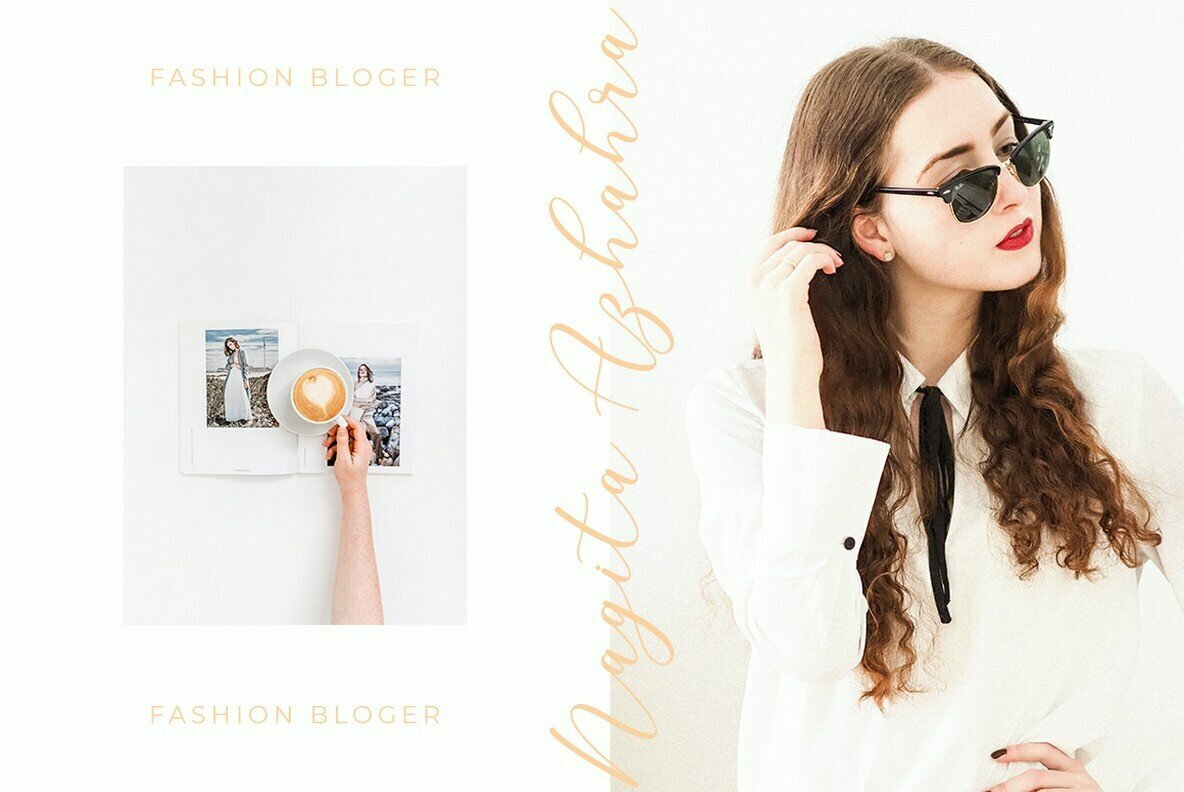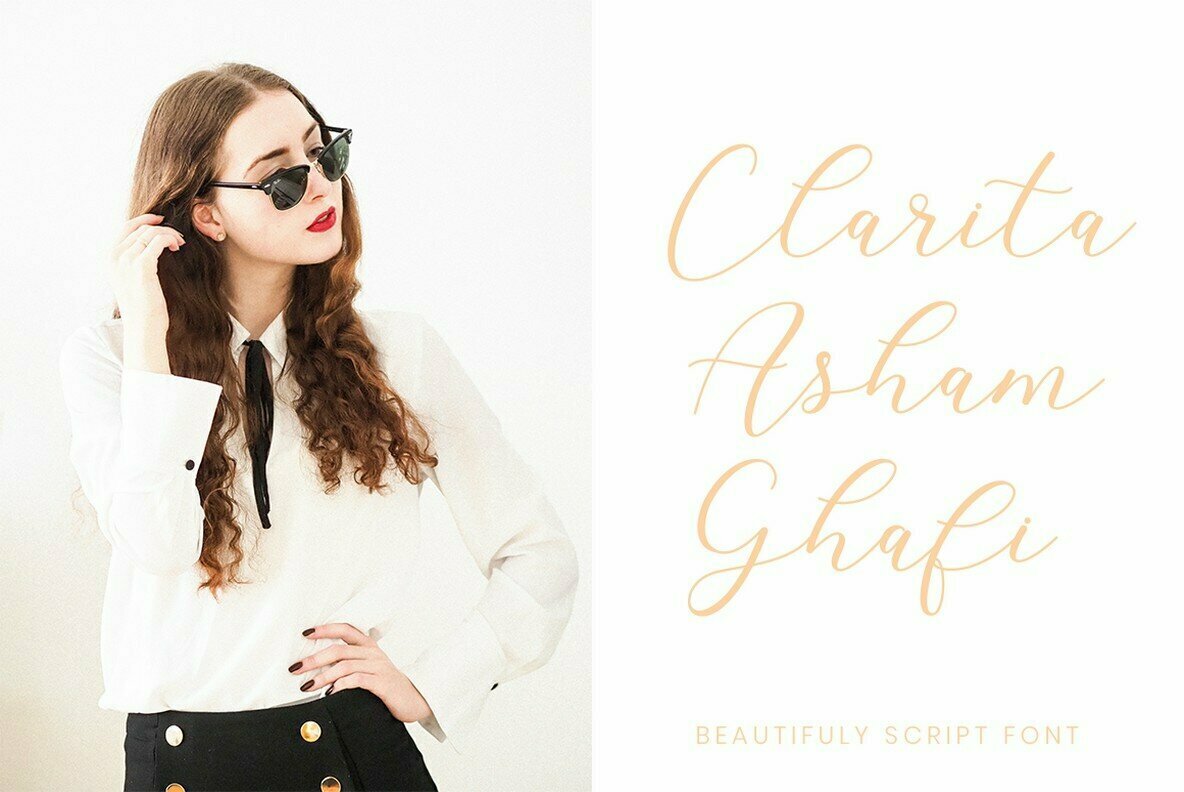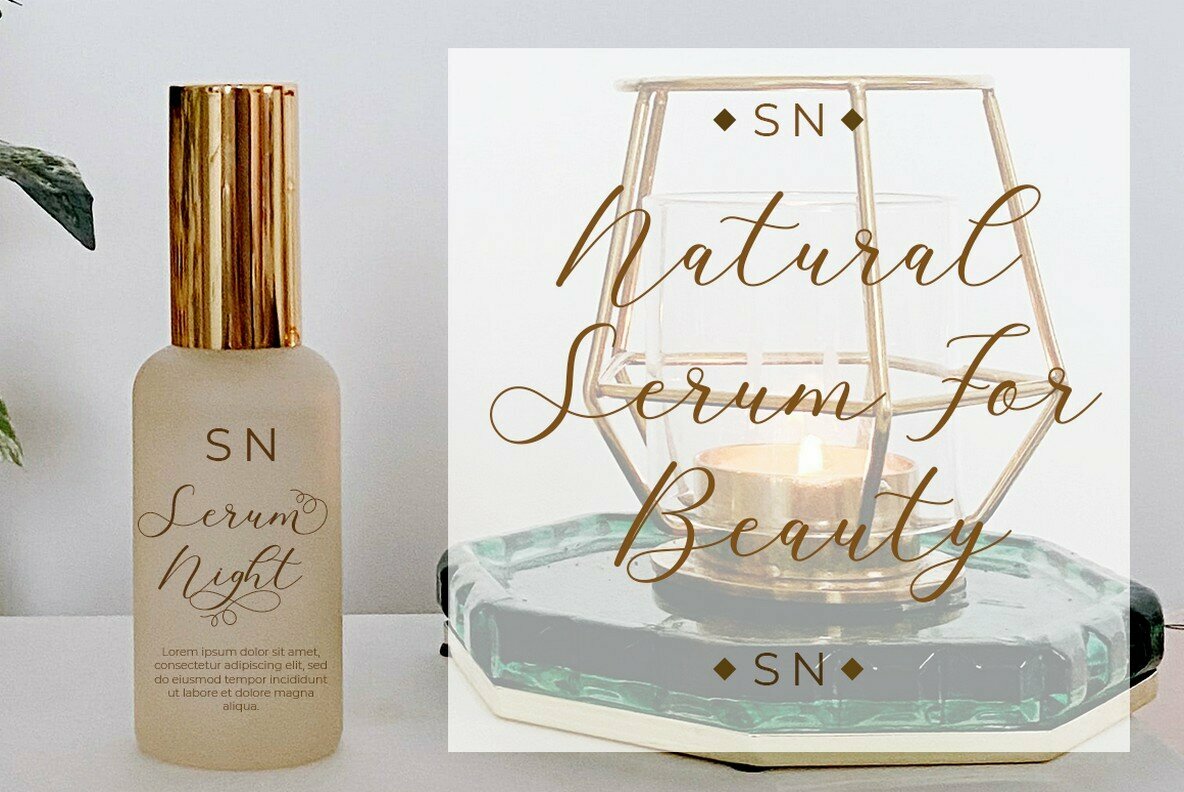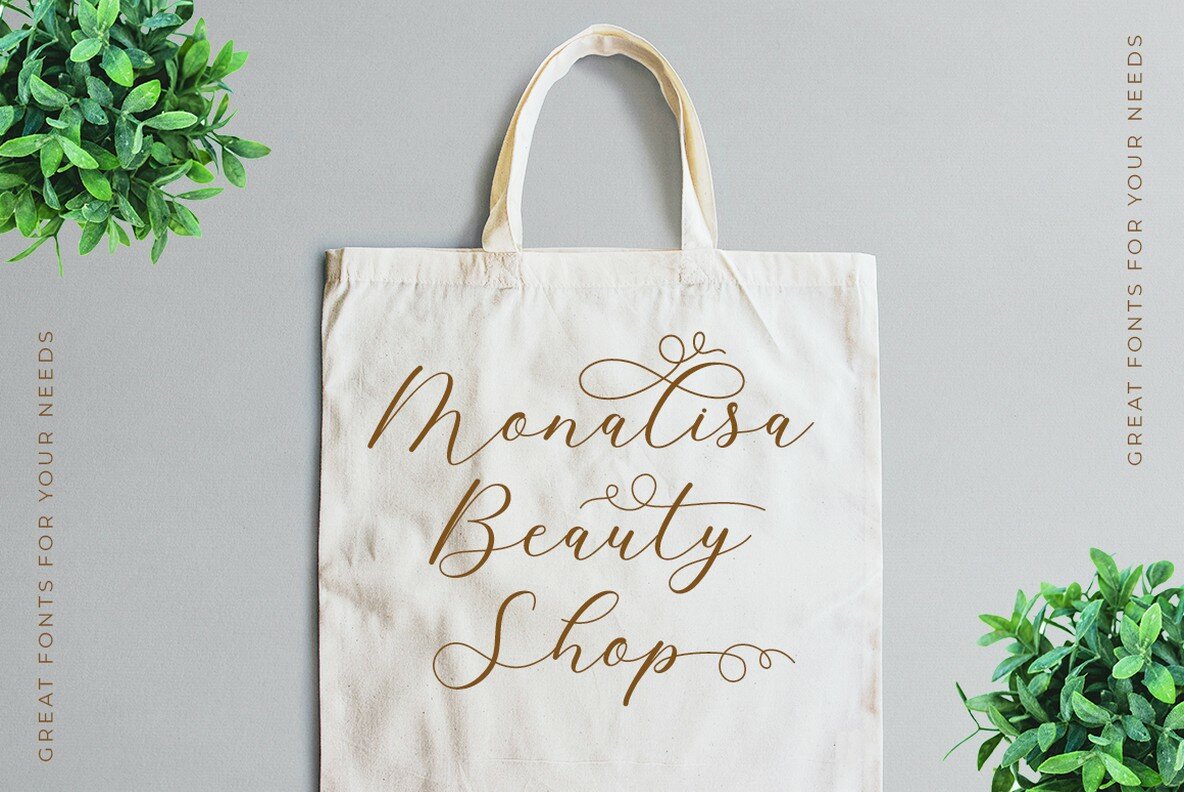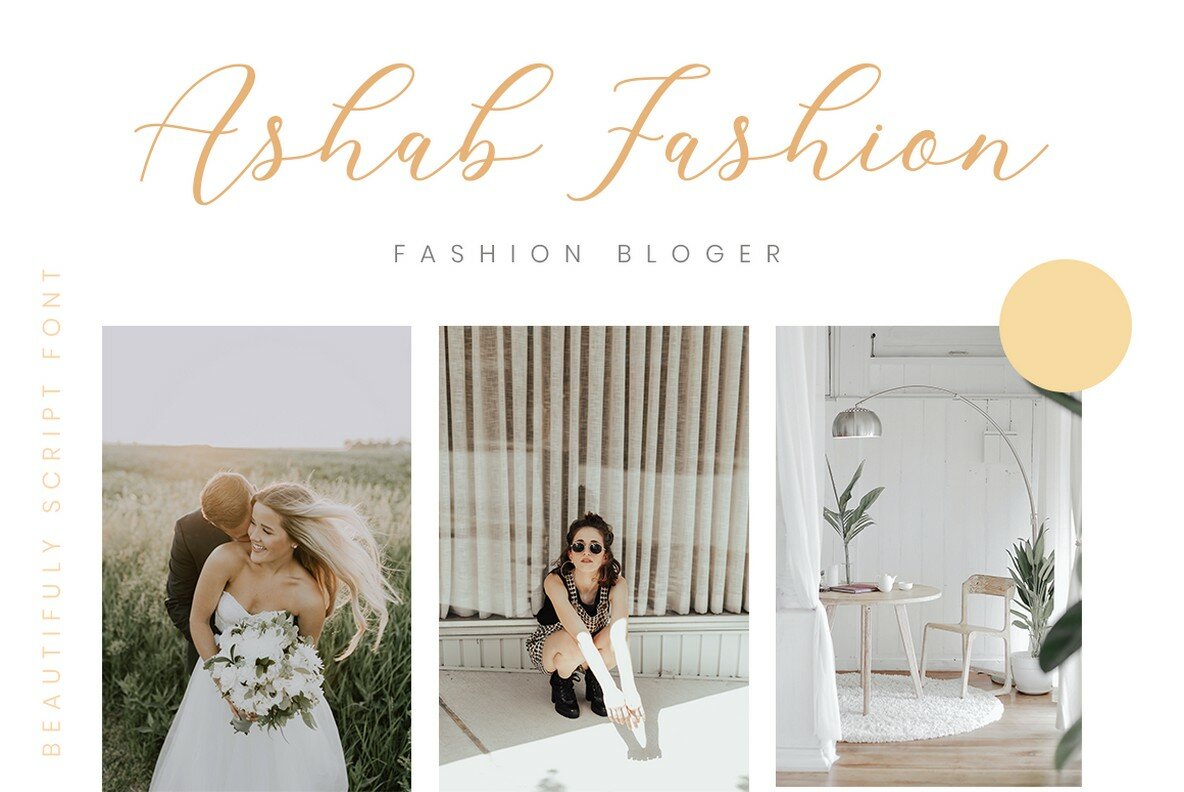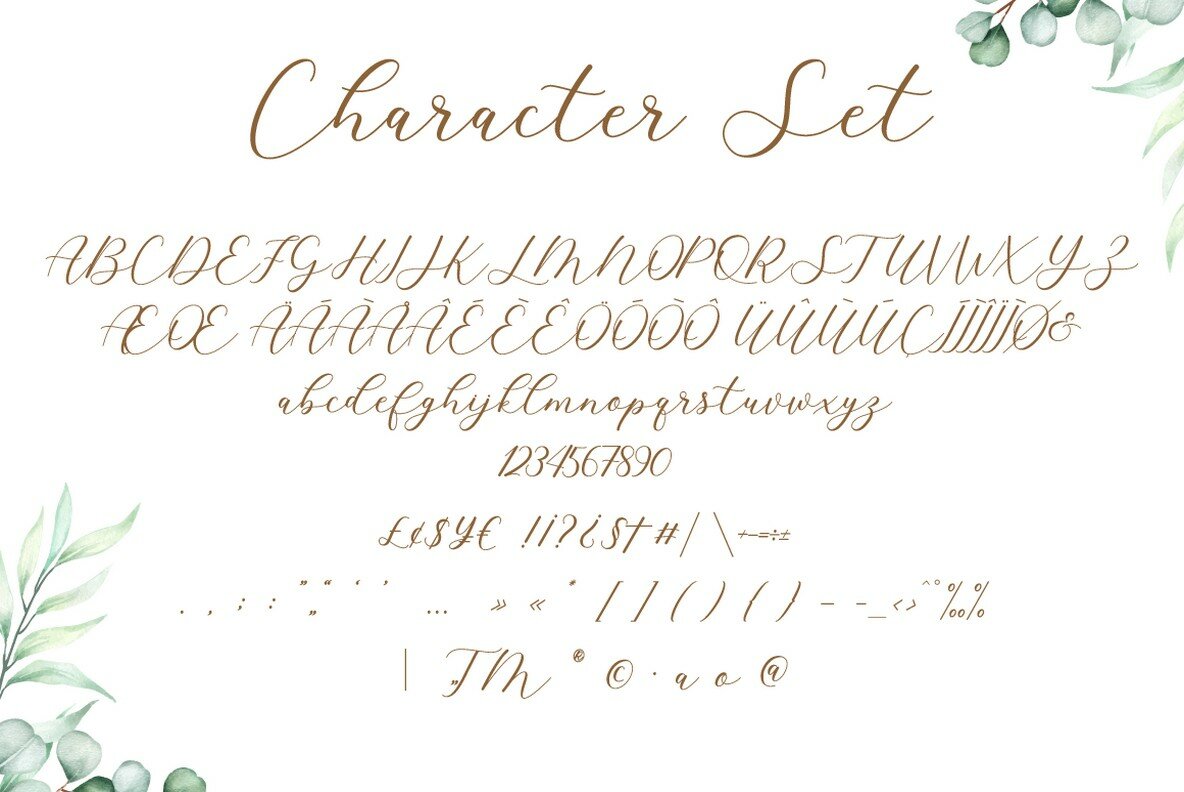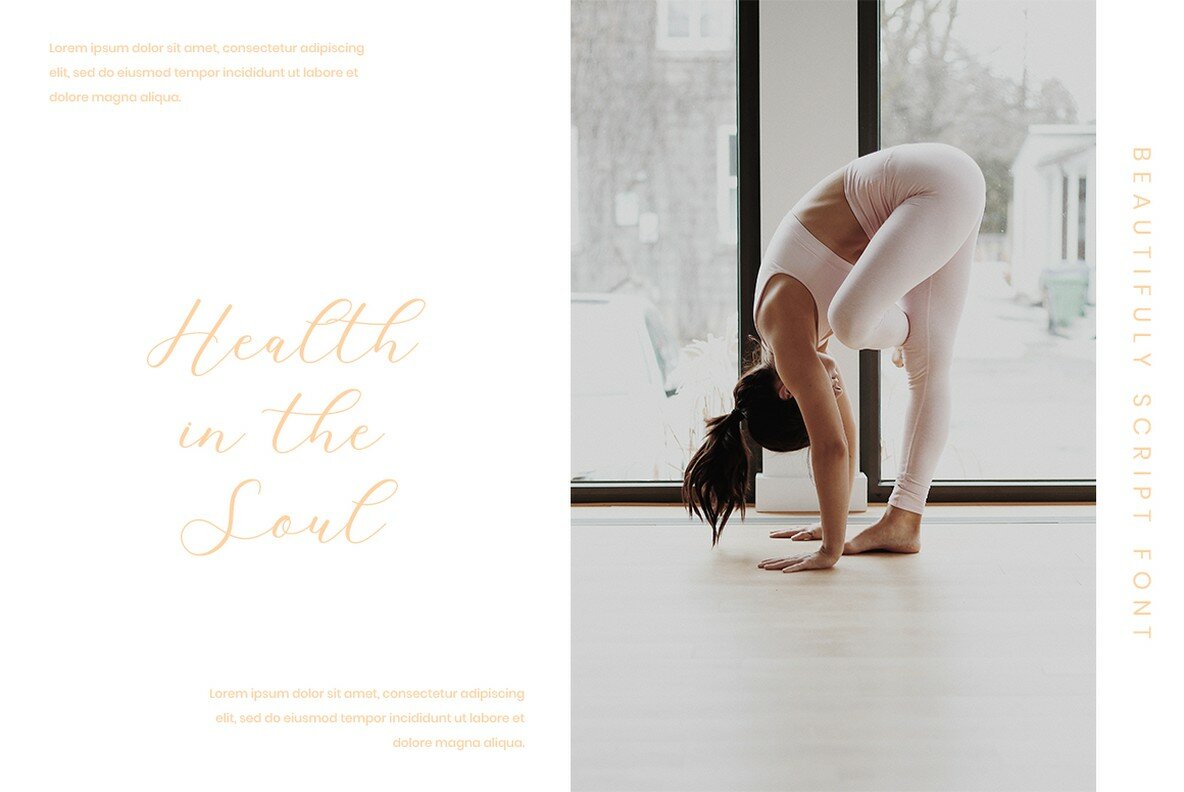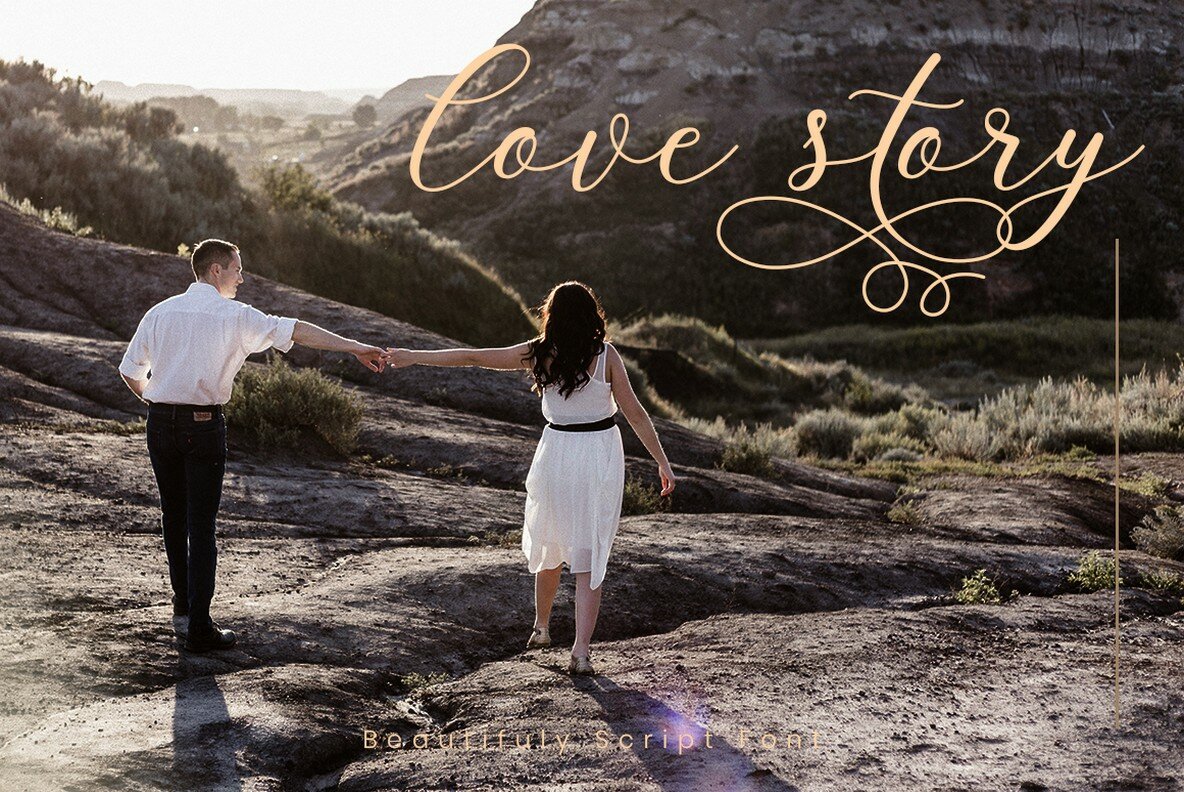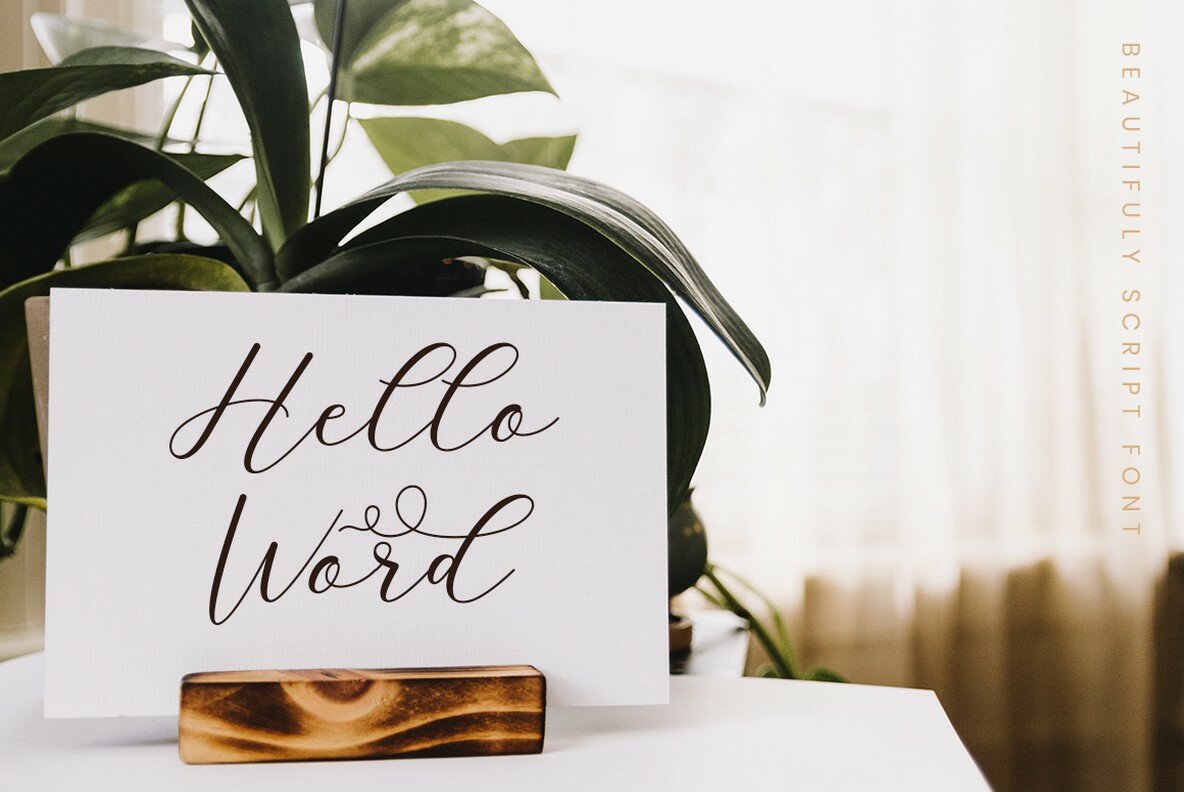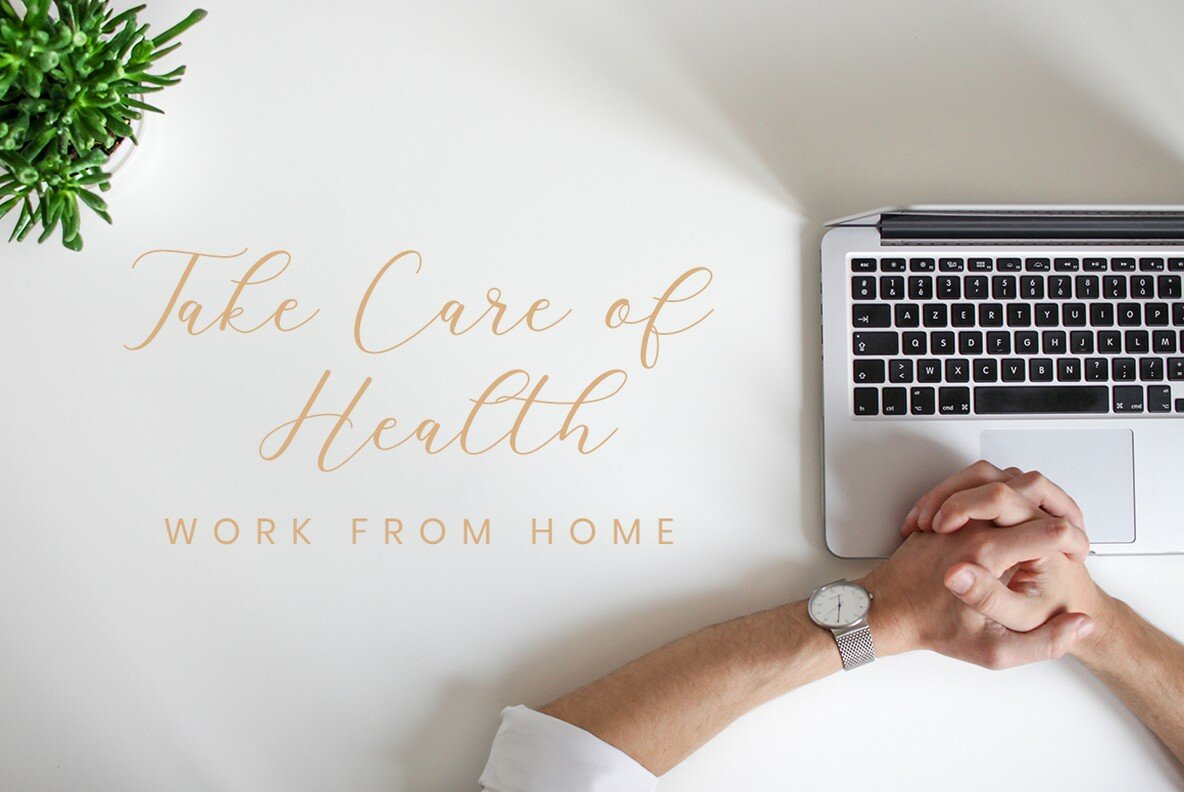
Cavilay Script Font
Cavilay Script
Cavilay Script is a beautifully crafted typeface that radiates elegance and modernity, making it an exceptional choice for a variety of sophisticated design projects. Its feminine and slightly messy style adds a personal touch, ideal for enhancing the aesthetic of wedding events, anniversaries, birthdays, and other celebratory occasions. Designed specifically for those seeking a luxurious handwritten touch, Cavilay Script seamlessly adapts to diverse applications. From greeting cards and elegant logos to branding initiatives and stationery, it provides a perfect blend of style and functionality. Its versatility extends to posters, packaging, and websites, making it an indispensable resource for any project requiring a distinguished script.Cavilay Script: Elegant Script for Stylish Designs